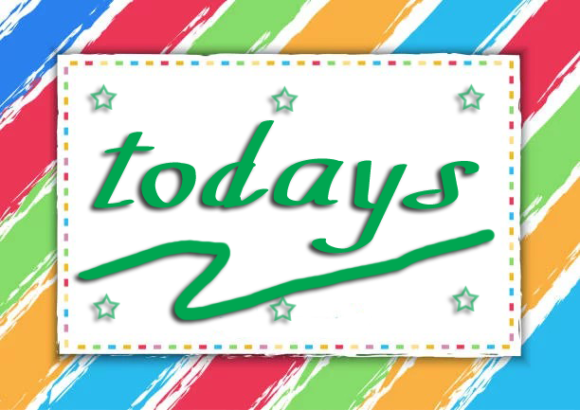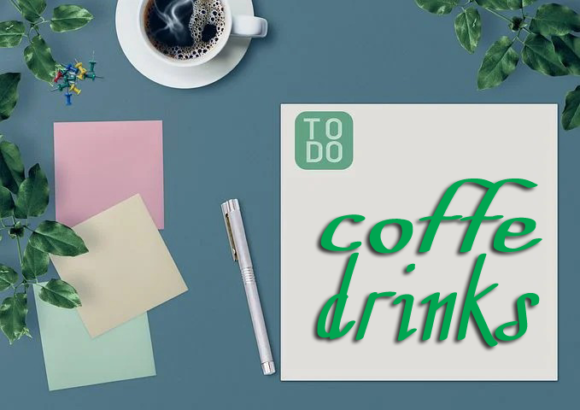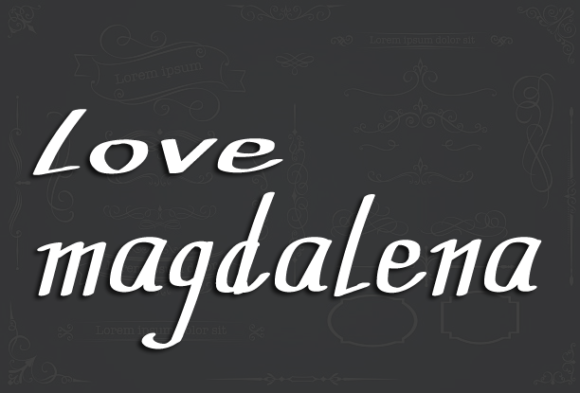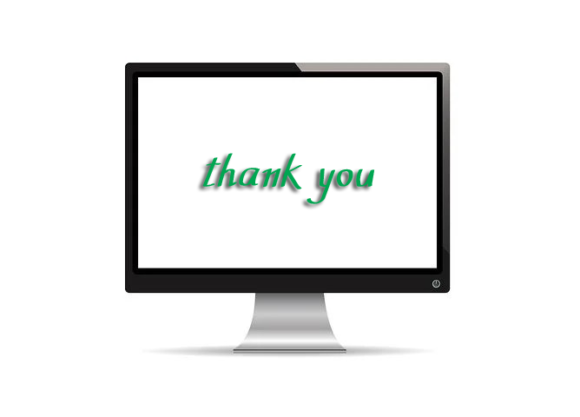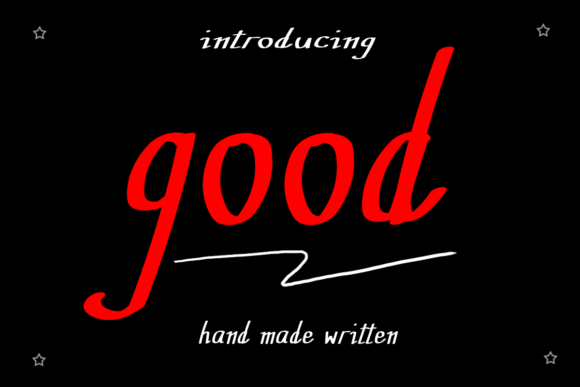
Introducing Good Font: The Ultimate Luxury Script Font for Your Design Projects
Are you tired of using the same old fonts for your design projects? Do you want to add a touch of luxury and whimsy to your creations? Look no further than Good Font, a sweet and flowing script font that’s sure to elevate your designs to the next level. In this article, we’ll take a closer look at Good Font, its features, and how you can use it to add a spark of luxury to your design projects.
What is Good Font?
Good Font is a beautiful script font that’s designed to add a touch of elegance and sophistication to your designs. Featuring characters that dance along the baseline, this font is perfect for creating luxurious and eye-catching designs that will leave a lasting impression. Whether you’re a designer, crafty DIY enthusiast, or simply someone who loves to create, Good Font is the perfect addition to your font collection.
Key Features of Good Font
So, what makes Good Font so special? Here are just a few of its key features:
- Whimsical and flowing design: Good Font features a unique and elegant design that’s perfect for creating luxurious and eye-catching designs.
- Characters that dance along the baseline: The characters in Good Font are designed to dance along the baseline, creating a sense of movement and fluidity.
- Luxury spark: Good Font is designed to add a touch of luxury to your designs, making it perfect for high-end branding, packaging, and marketing materials.
- Perfect for creative projects: Whether you’re a designer, crafty DIY enthusiast, or simply someone who loves to create, Good Font is the perfect addition to your font collection.
How to Use Good Font in Your Design Projects
So, how can you use Good Font in your design projects? Here are a few ideas to get you started:
- Branding and logos: Use Good Font to create a luxurious and eye-catching logo for your brand or business.
- Packaging design: Add a touch of elegance and sophistication to your packaging designs with Good Font.
- Marketing materials: Use Good Font to create eye-catching marketing materials, such as brochures, flyers, and posters.
- DIY projects: Good Font is also perfect for crafty DIY enthusiasts who love to create handmade cards, gift tags, and other paper crafts.
Tips for Getting the Most Out of Good Font
Here are a few tips for getting the most out of Good Font:
- Experiment with different sizes and colors: Good Font looks great in a variety of sizes and colors, so don’t be afraid to experiment and find the perfect combination for your design.
- Pair with other fonts: Good Font pairs well with a variety of other fonts, so try pairing it with a bold sans-serif font for a striking contrast.
- Use it sparingly: Good Font is a luxurious font, so use it sparingly to add a touch of elegance and sophistication to your designs.
In conclusion, Good Font is a beautiful and luxurious script font that’s perfect for designers, crafty DIY enthusiasts, and anyone who loves to create. With its whimsical and flowing design, characters that dance along the baseline, and luxury spark, Good Font is sure to elevate your designs to the next level. So why wait? Download Good Font today and start adding a touch of luxury to your design projects!
Whether you’re looking to create a luxurious brand identity, eye-catching packaging, or simply a beautiful handmade card, Good Font is the perfect choice. So go ahead, get creative, and see what amazing designs you can create with Good Font!